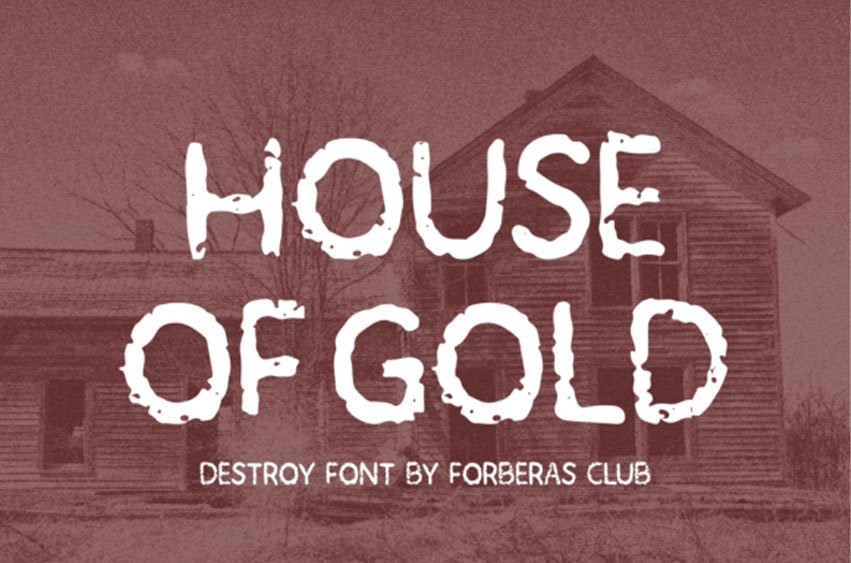
House of Gold Font is an incredibly cool and unique display font.
It has a modern yet whimsical style and it will undoubtedly immerse your designs into a magical world.